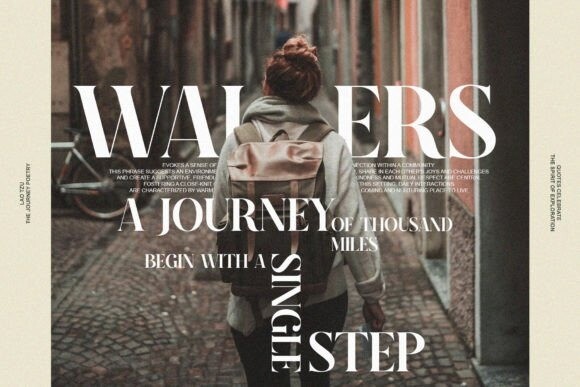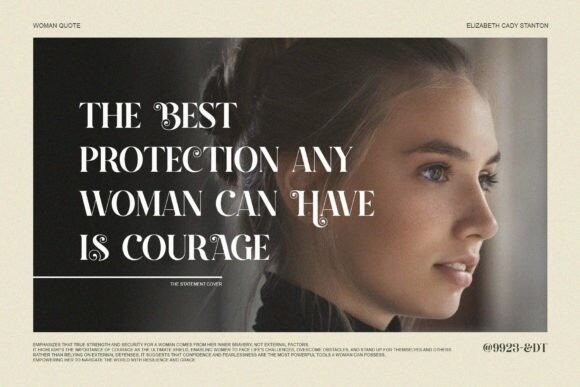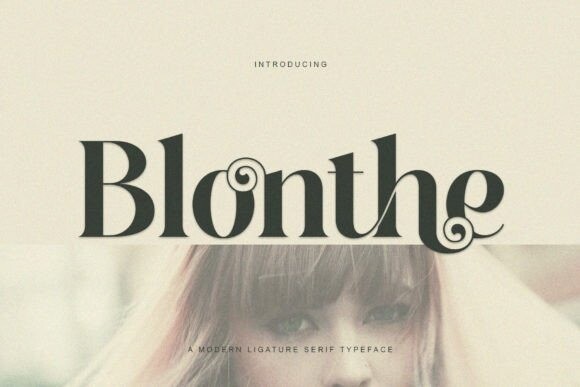
Blonte Font
Blonte Font: Our new bauty font release – Blonte brings the perfect balance of sophistication and style to any project. With its graceful serif design, this font is made for those who want to add a touch of class and femininity to their work. Featuring unique ligatures and alternates, Blonte lets your creativity flow, giving you endless possibilities to customize your designs.
Whether you’re working on wedding invitations, branding, social media, or editorial layouts, Blonte adds that soft, elegant charm you’ve been searching for. Get Blonte today and let your designs bloom with beauty and style!